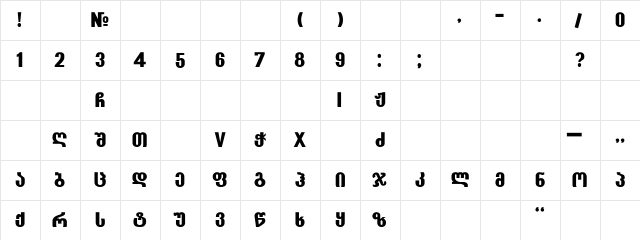
GEO-Groteski Regular
Design Context for GEO-Groteski Typeface
GEO-Groteski takes a clean, functional approach — its unadorned letterforms prioritise legibility and work reliably across screen and print environments.
Font Pairing: Works well alongside a characterful serif or display font that can carry the expressive load while GEO-Groteski handles the functional copy.
Pro Tip: Pair GEO-Groteski with a display or serif font for headlines — its neutral character makes it an excellent supporting player in complex typographic systems.